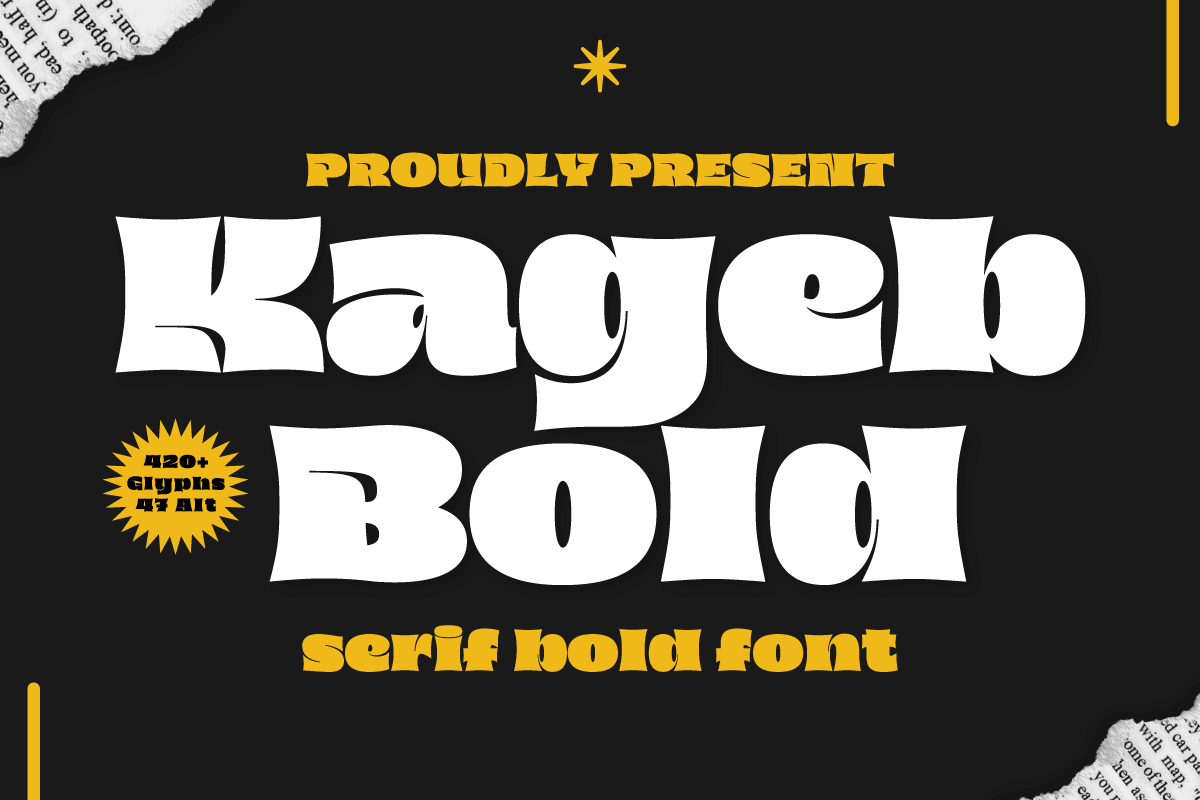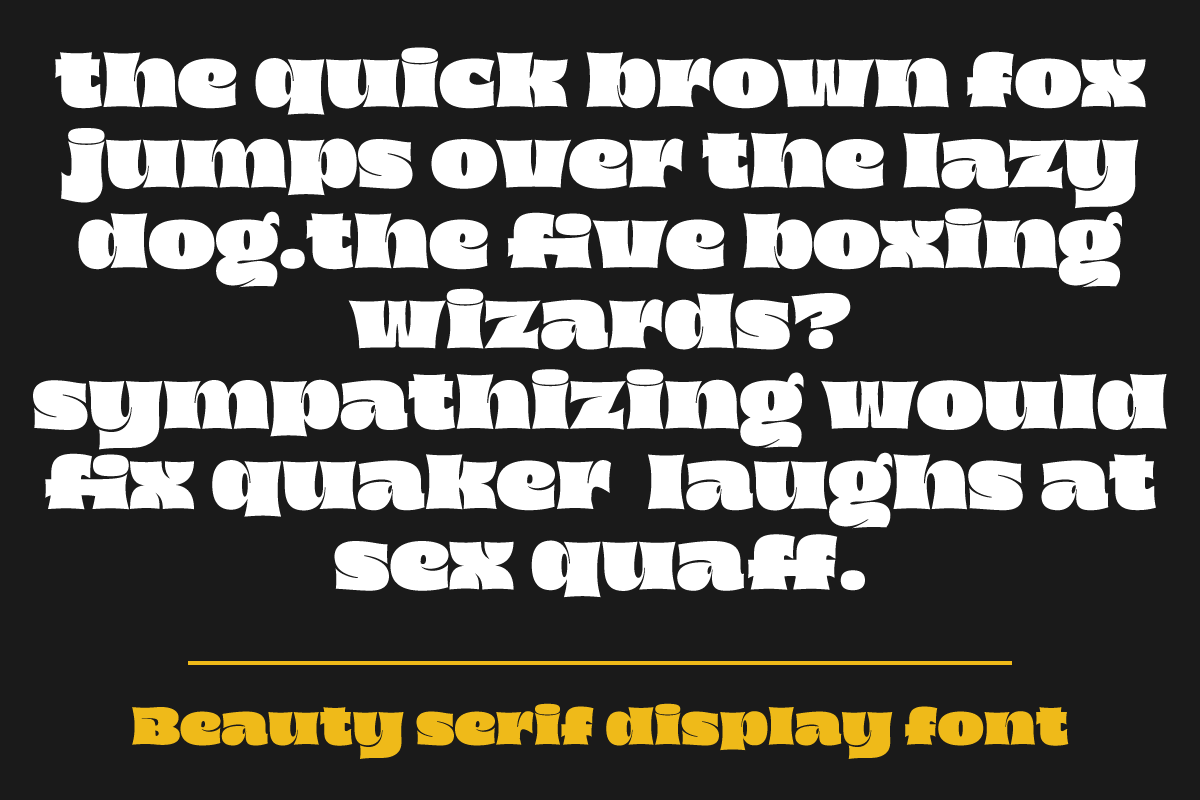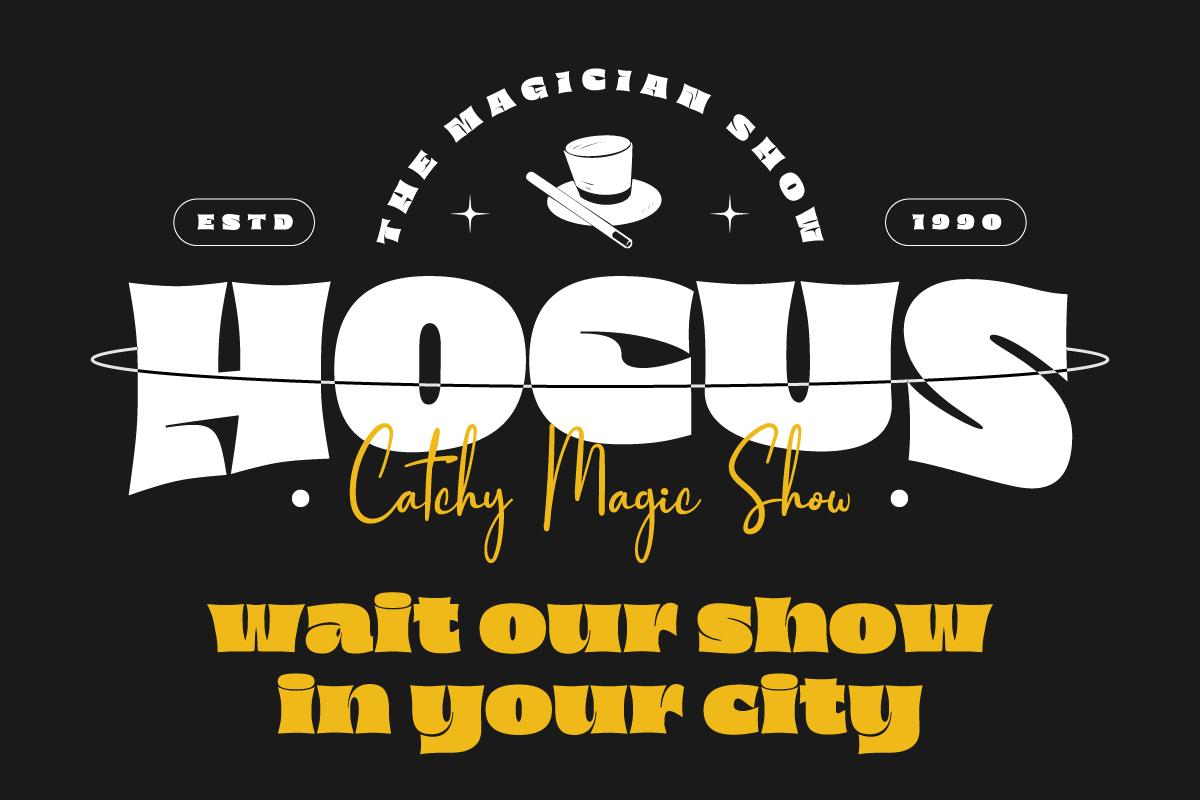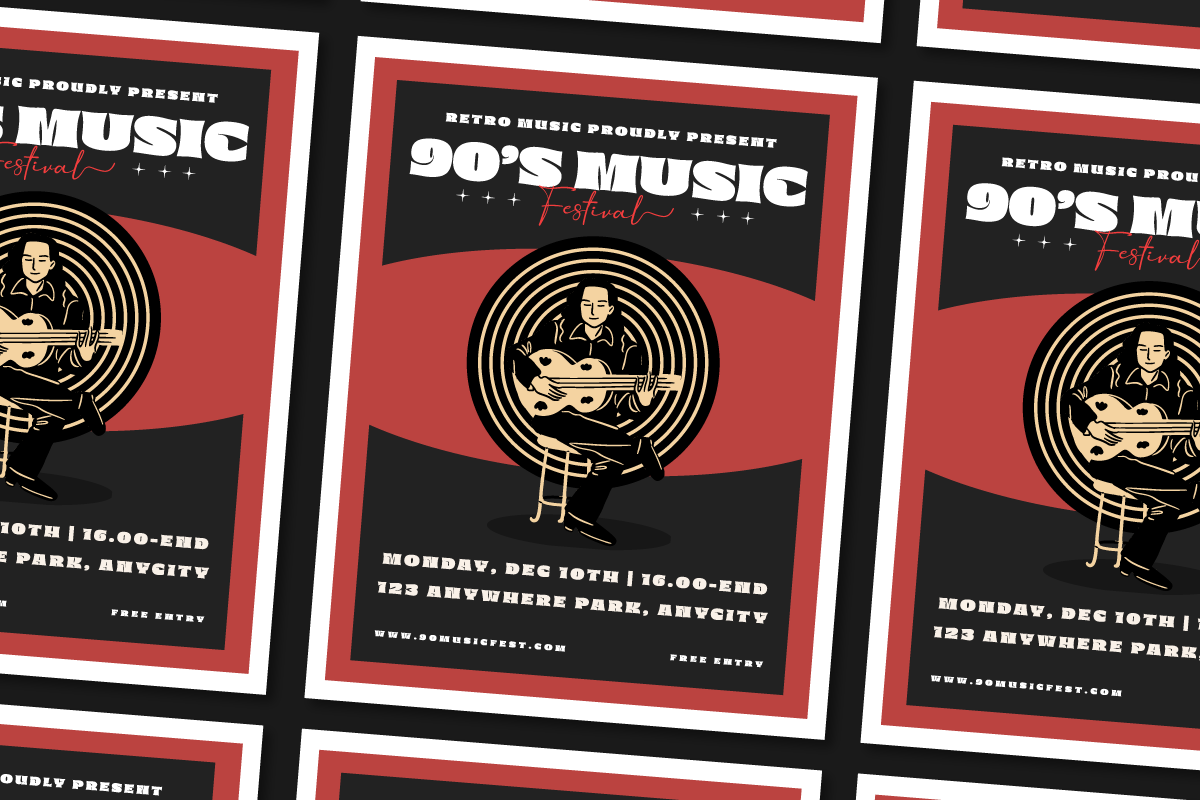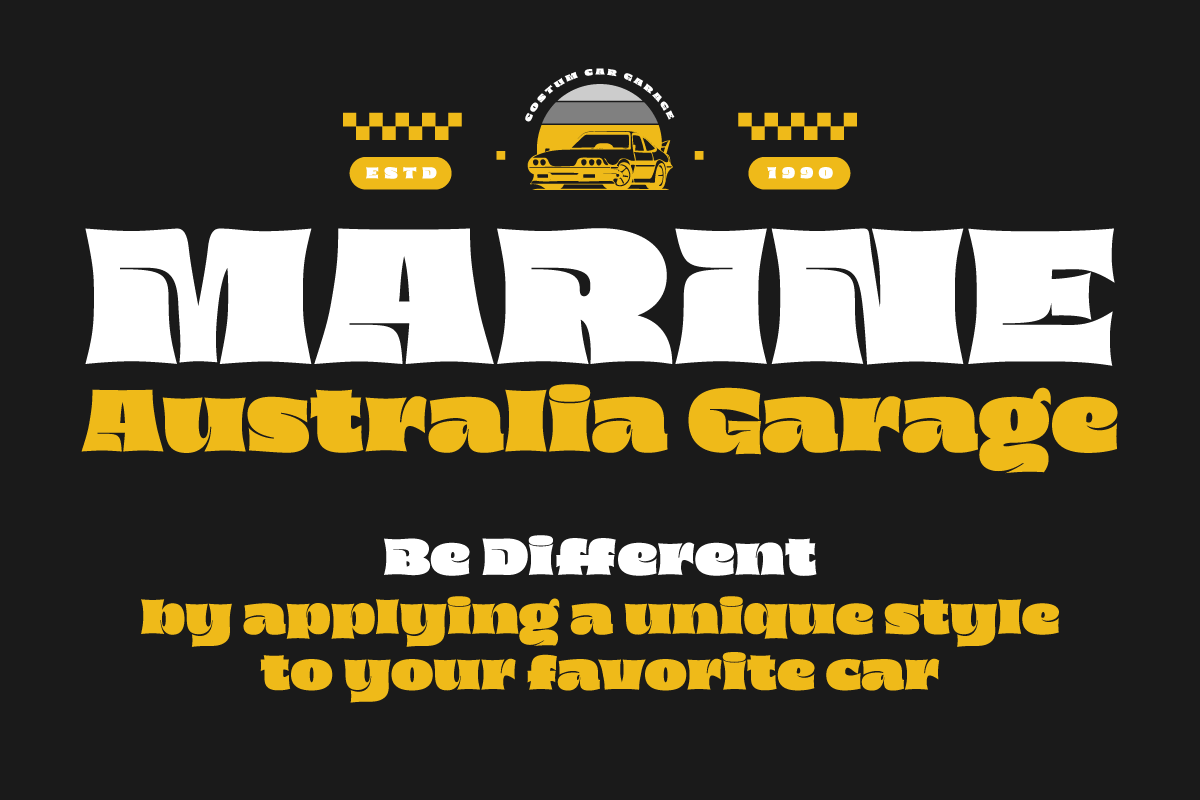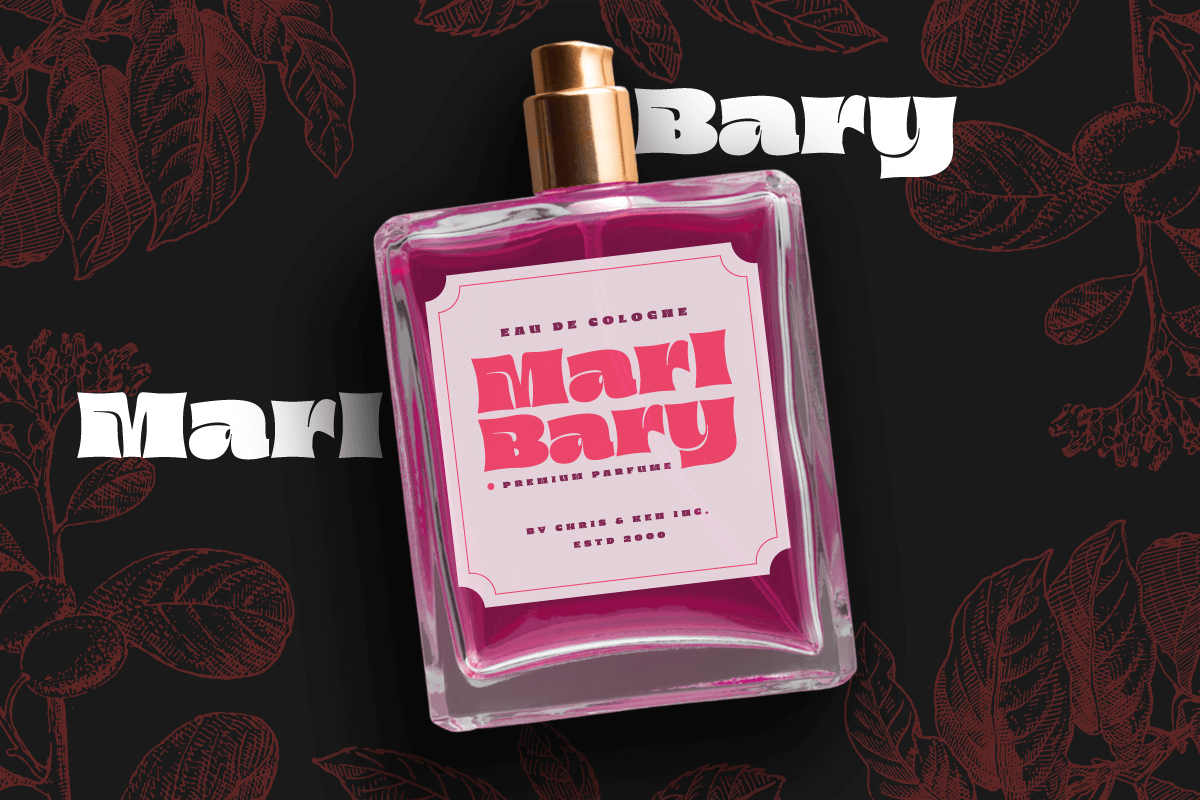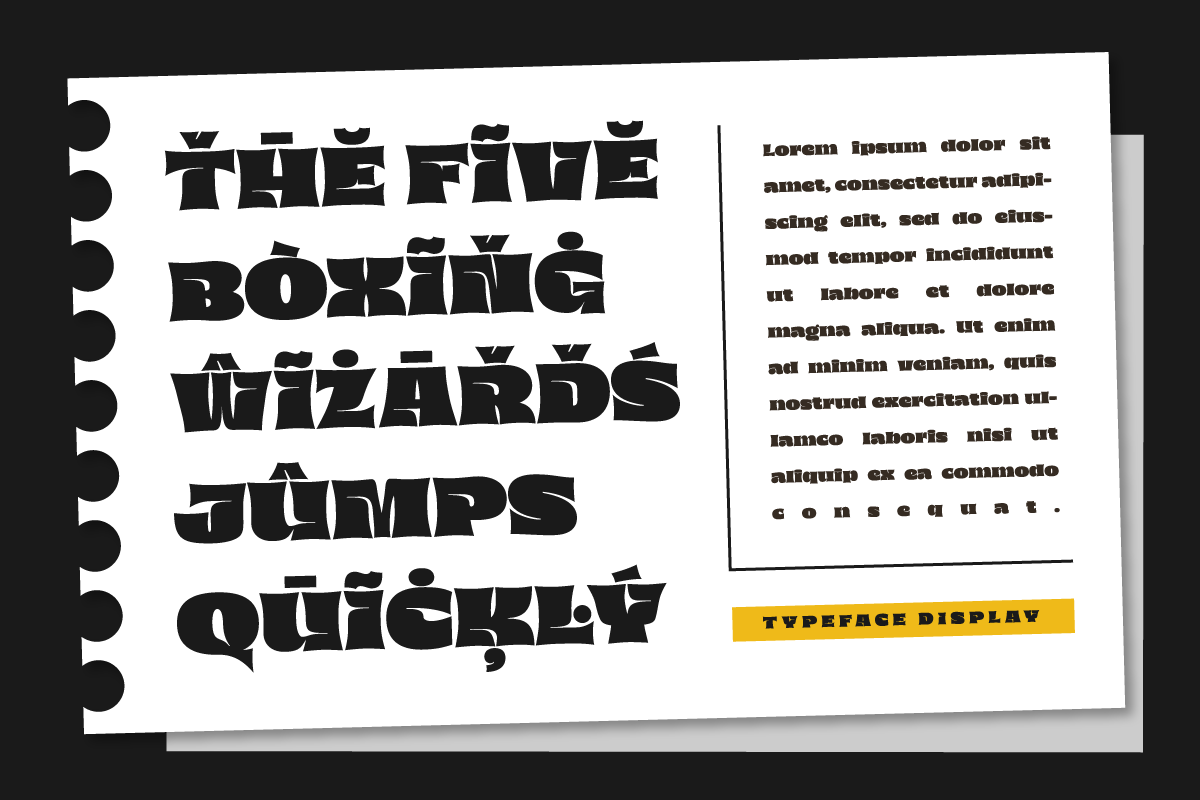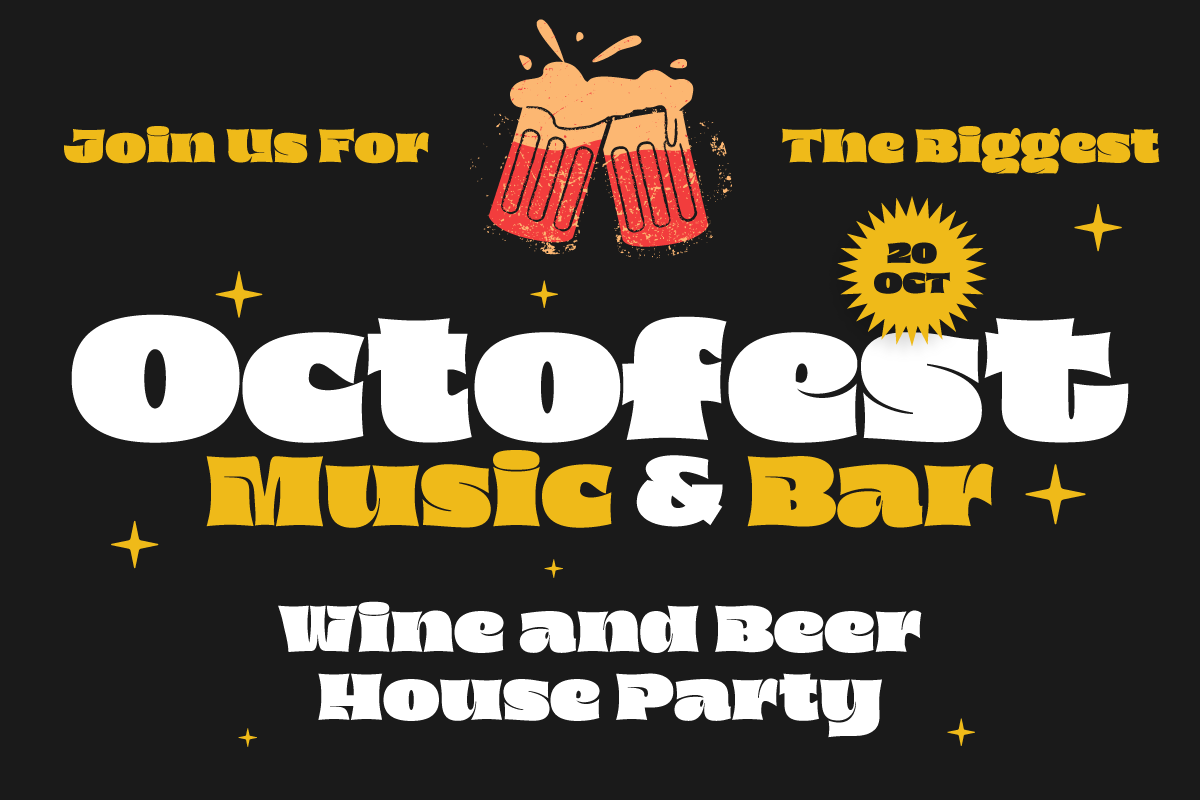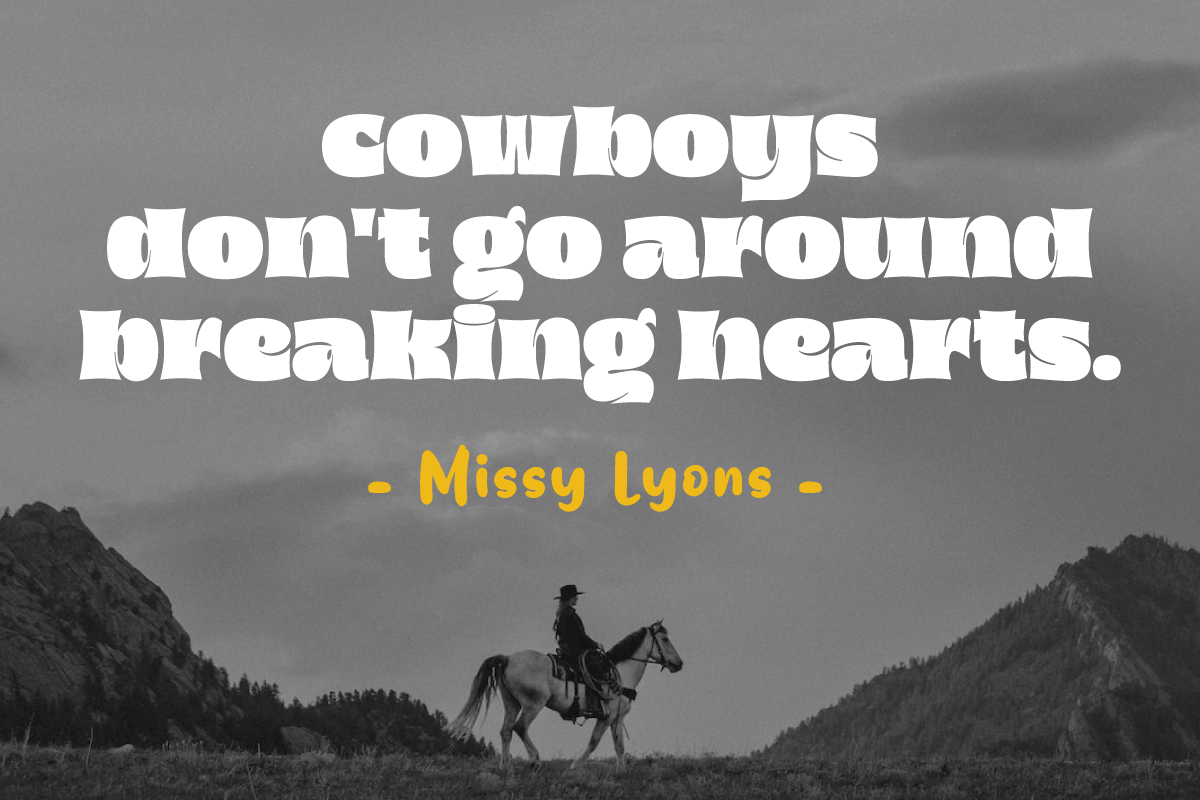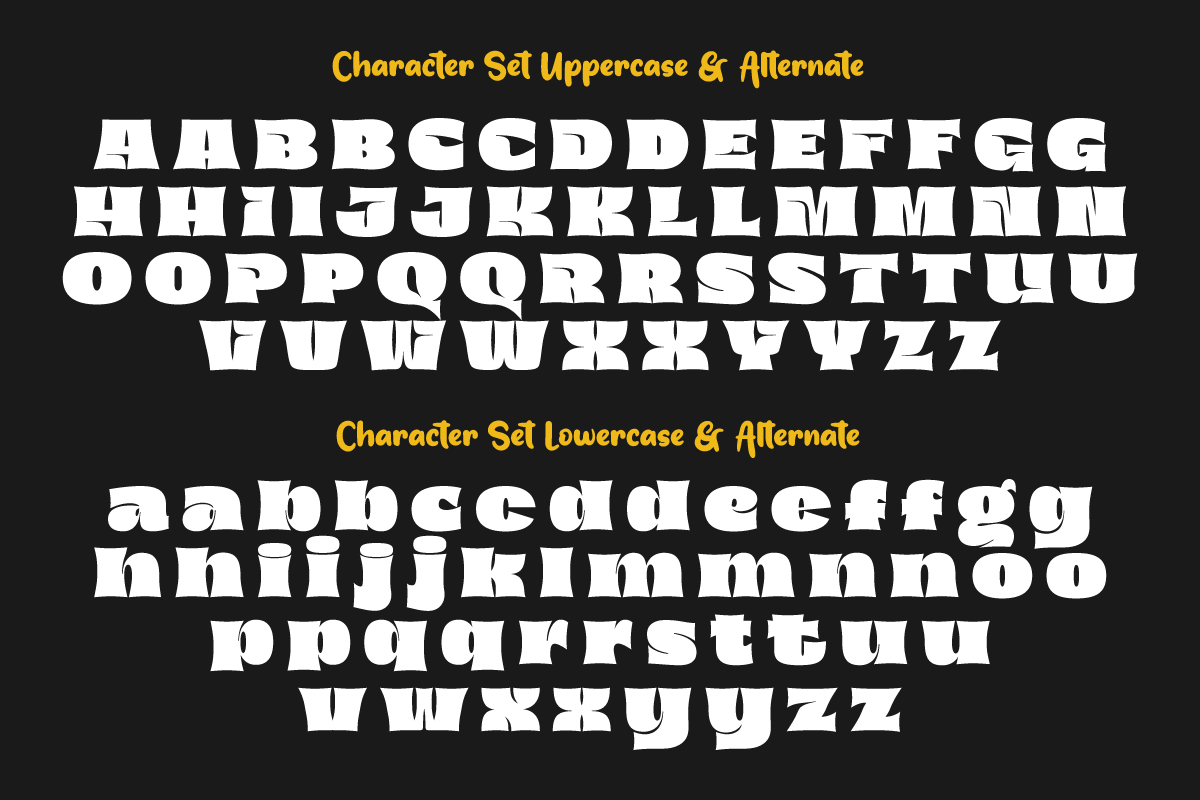
5. Kageb Bold – Bold Font
Kageb Bold – Bold Font
Introducing Kageb Bold Serif Display Font, a font that exudes boldness and confidence. With its sharp and pointed serifs and thick lines, this display font makes a strong and impactful statement. The font is perfect for creating headings, titles, and logos that demand attention.
Kageb Bold Serif Display Font is ideal for designs that require a bold and daring look. The font’s character is unmistakably strong and powerful, making it suitable for branding, advertising, and other marketing materials. It can also be used in editorial design, such as magazine layouts, where the boldness of the font can make a statement.
With multilingual support, Kageb Bold Serif Display Font is accessible to a wider audience, enabling designers to reach out to different markets. Whether you’re designing for a fashion brand, a sports team, or an event, this font will give your design a bold and unforgettable presence.